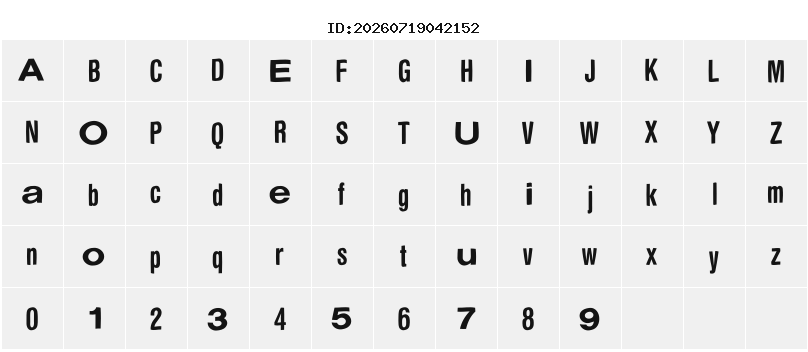
Confusica Preview
• Font Name: Confusica
• Full Font Name: Confusica
• Version: 1.0 2002-08-18
About Confusica.ttf
Confusica.ttf is a modern, elegant sans-serif font designed for ultimate readability and visual harmony. Perfect for branding, headlines, web design, and print materials.